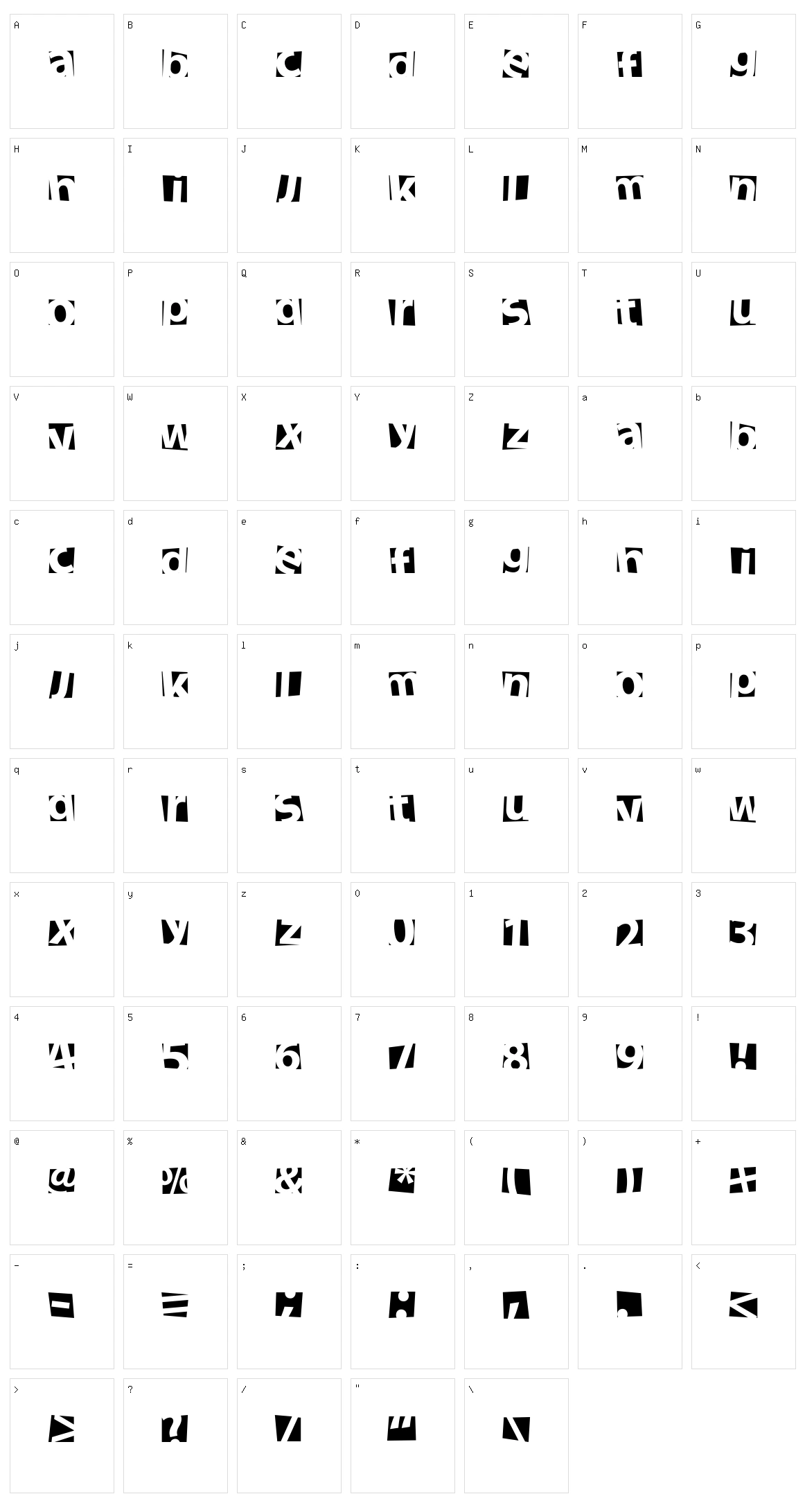
The free font New Facebook is carefully designed by prask, showcasing a thoughtful balance of creativity and usability and falls under the Distorted font style. When you download the ZIP file, it contains only 9.76 KB of font files, making it lightweight and quick to download. Please review the license details below to understand permitted usage and distribution rights. If license information is not available, we recommend using this font for personal projects only or contacting the author directly for commercial usage permissions.